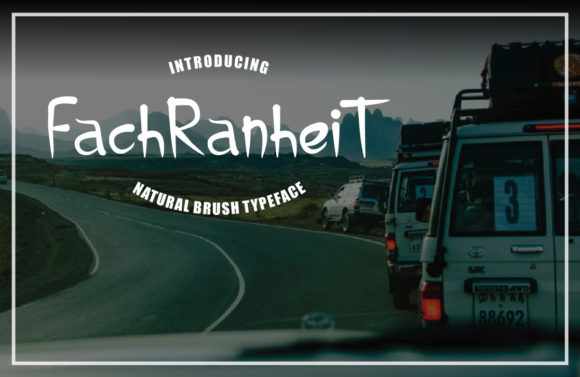
Prepare yourself to be mesmerized by Fachranheit, the captivating display font that will unleash your creativity and transform your designs into masterpieces. Immerse yourself in the world of Fachranheit, a natural brush display font that exudes elegance and charm. Its meticulously crafted strokes evoke a sense of authenticity and warmth, making it the perfect choice for adding a touch of personality to your projects.
With Fachranheit, you'll have a font that's as versatile as it is visually stunning. Whether you're creating quotes that inspire, brochures that inform, posters that grab attention, or headlines that demand action, Fachranheit will elevate your designs to new heights. Its remarkable readability ensures that your message will be conveyed with clarity and impact.
Fachranheit is not just a font; it's an experience that will ignite your imagination and captivate your audience. Its organic and flowing lines create a visual symphony that dances across your designs, adding a touch of magic to every word and phrase. As a creation of fachranheit, this font embodies the essence of artistry and innovation, promising to transform your designs into works of art.
Indulge in the beauty of Fachranheit and unlock a world of creative possibilities. Let your designs bloom with a font that captures the essence of nature and artistry. With Fachranheit, every project becomes a canvas for your creativity, a testament to your unique style and vision.